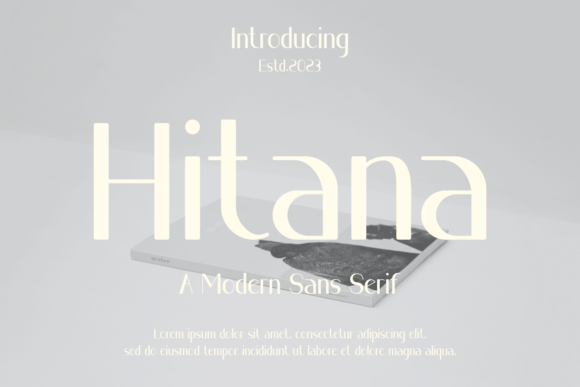
Welcome to the realm of Hitana Font, an exquisite Sans Serif creation that radiates with boldness and authenticity. This remarkable font invites you to explore a world of captivating designs, leaving an indelible mark on every project you undertake.
Exuding confidence and authority, Hitana Font is the perfect companion for legal documents, lending a sense of professionalism and poise to your every word. Its sharp and defined strokes command attention, ensuring your message is conveyed with clarity and impact.
Not limited to the realm of law, Hitana Font's versatility shines across a myriad of applications. Unleash your creativity in logo design, transforming your brand into a symbol of power and distinction. With Hitana Font, your logos will resonate with strength and sophistication, making a lasting impression on your audience.
Harness the energy of Hitana Font to craft t-shirt designs that speak volumes. Create esports logos that evoke a sense of dynamic energy and fierce competition. Elevate your website's visual appeal, leaving visitors captivated by your attention to detail and commitment to excellence.
Hitana Font is a font of many talents, effortlessly adapting to a multitude of contexts. Its versatility knows no bounds, making it the ideal choice for branding and marketing endeavors. Imagine your brand's message emblazoned in the bold strokes of Hitana Font, leaving an unforgettable impression on potential customers.